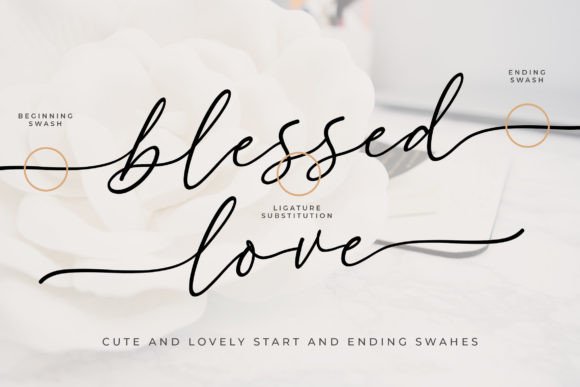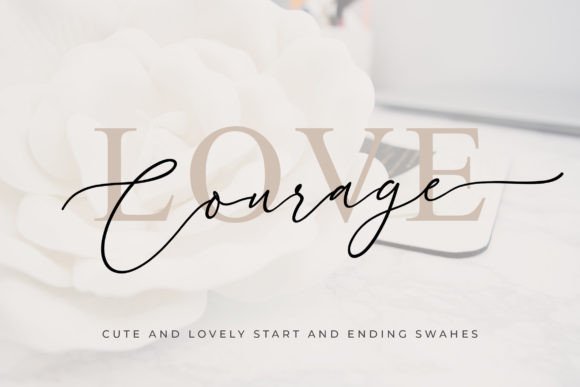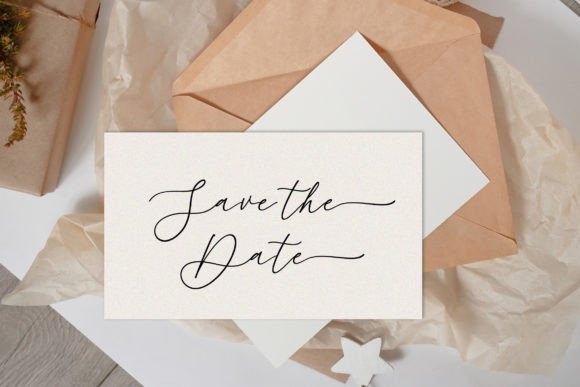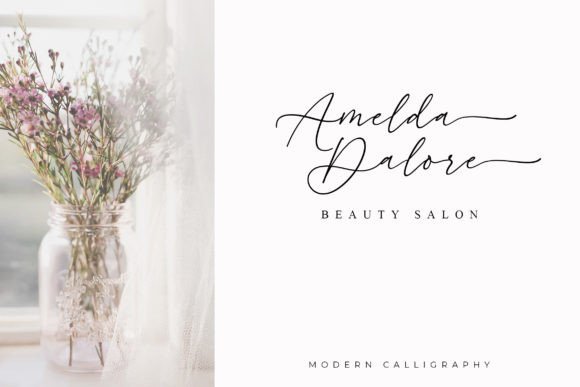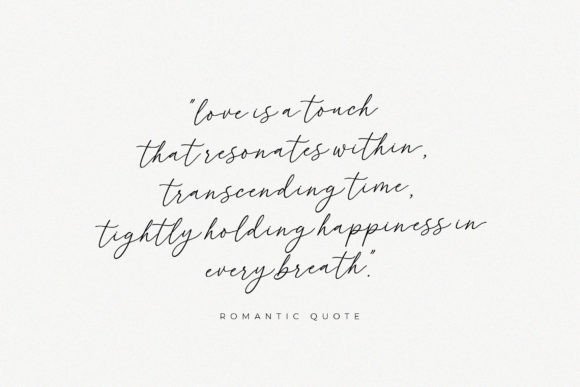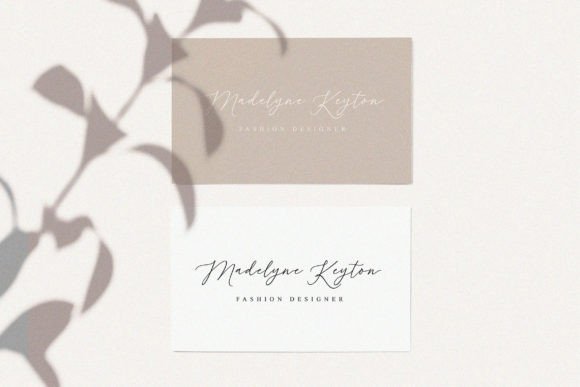
Blessed Love Font: The Ultimate Design Companion
Have you ever been in the midst of a design project, struggling to convey the perfect sentiment? Perhaps it’s a heartfelt wedding invitation, a touching eulogy, or a romantic greeting card. Whatever the occasion, the right font can make all the difference.
Enter the Blessed Love Font, an elegant script font designed to capture the essence of love and connection. With its beautiful letterforms and captivating swashes, this font is the perfect tool for designers looking to elevate their projects with charm, elegance, and versatility. Whether you’re working on a multilingual project or need to communicate in a variety of languages, the Blessed Love Font has got you covered.
As a designer, you understand the importance of choosing the right font to convey your message. That’s why the Blessed Love Font is a valuable addition to any design toolkit, offering a unique blend of style and functionality that’s sure to leave a lasting impression.
- Unique Characteristics: The Blessed Love Font features elegant, cursive script and beautiful, flowing connections between letters, making it perfect for wedding invitations, love letters, and other romantic designs.
Blessed Love Font Review
Overall, I think Blessed Love Font is a lovely addition to any designer’s toolkit. Here are some things that work well: ✨
- It’s perfect for creating a romantic and whimsical atmosphere in designs, especially those related to love, relationships, or weddings.
- The font is highly customizable, allowing designers to adjust the size, color, and spacing to fit their specific needs.
- The font’s cursive script makes it ideal for adding a personal touch to invitations, greeting cards, or other handwritten-style designs.
- The font may not be as readable at smaller sizes, which can make it difficult to use in body text or headlines.
- The font’s intricate details can sometimes make it difficult to pair with other fonts, especially those with bold or geometric styles.
- The font is not available in as many languages as some other fonts, which may limit its use in multilingual designs.
Overall, I think Blessed Love Font is a beautiful and unique font that can add a touch of elegance to any design. While it may have some limitations, its customization options and romantic vibe make it a great choice for designers looking to create special and memorable designs.
The “Blessed Love Font” is ideal for:
- Christian-themed graphics and designs
- Valentine’s Day and love-themed designs